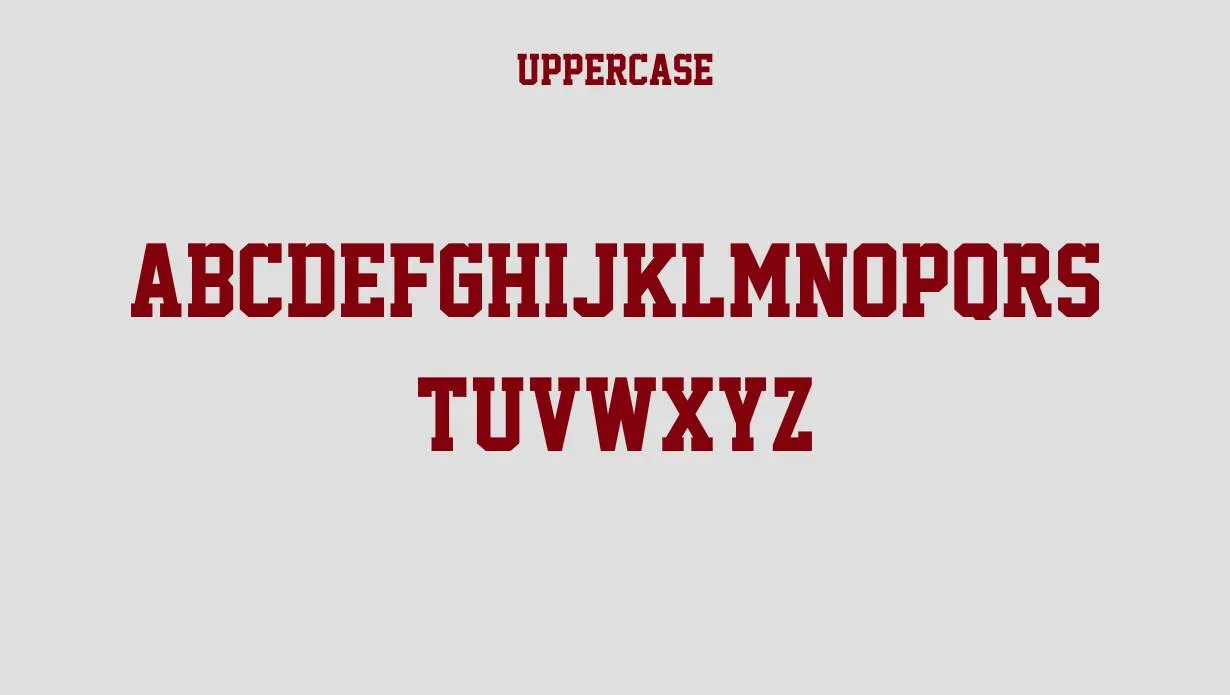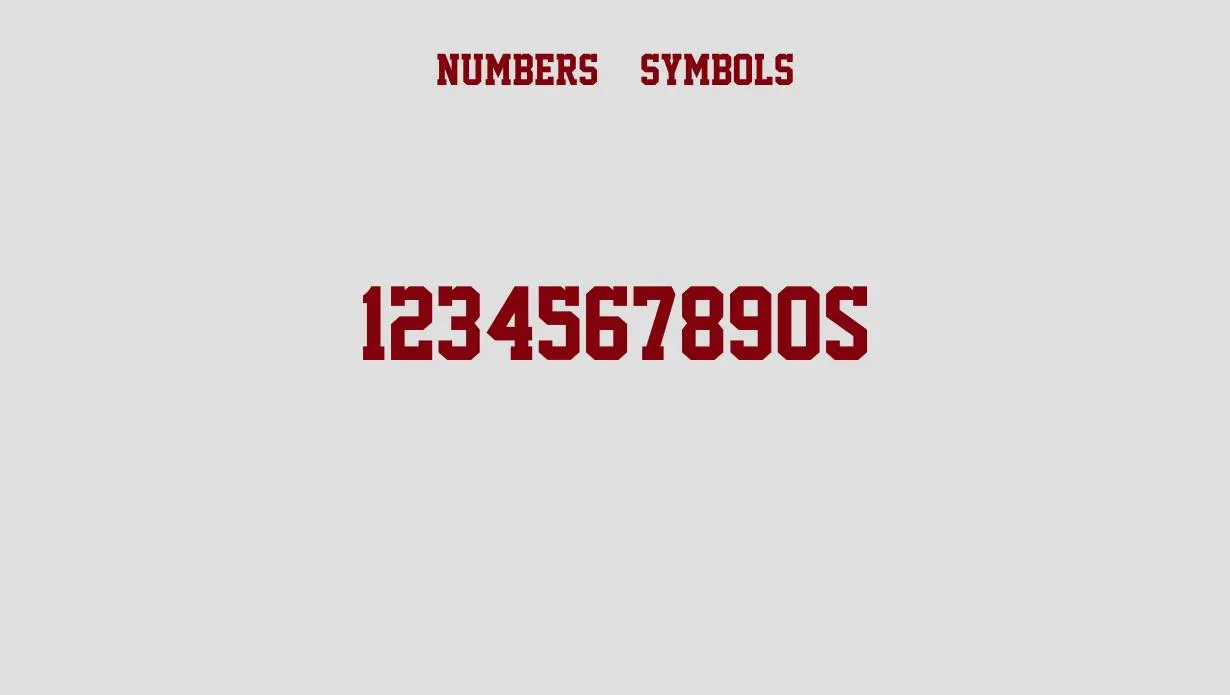
Chicago Bulls Font is a distinctive typeface that’s closely associated with the Chicago Bulls basketball team. You can utilize it with Text Generator to recreate the team’s iconic text, and logo, and easily incorporate it into your designs with Canva.
The designer of the Chicago Bulls Font is Morris Fuller Benton, but it’s recognized for its bold and dynamic appearance, making it perfect for creating content related to the team or adding a sporty touch to your design projects.